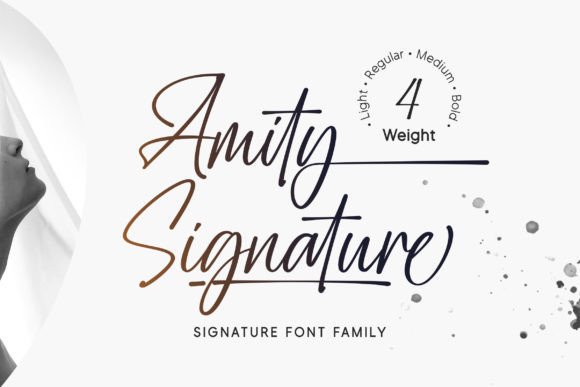
Step into the world of Amity Signature Font, a remarkable collection of four distinctive weights that will leave you captivated. From the delicate touch of Light to the unwavering strength of Bold, this font family offers an array of styles to match your every creative vision.
Unleash your imagination with Amity Signature. Whether you're crafting enchanting logos, building captivating brands, or designing eye-catching posters, this font is your versatile companion. Create labels that speak volumes, product packaging that entices, invitation designs that leave a lasting impression – and so much more.
With Amity Signature, you'll find limitless possibilities. Its elegant curves and sweeping strokes bring a timeless charm to your work, while its contemporary edge keeps you on the cutting edge of design. Experience the ultimate creative freedom as you explore the depths of this font's versatility.
Make a statement that resonates. Let Amity Signature be your voice, your brush, your chisel. Each stroke, each letter, each word carries the weight of your message, captivating your audience and leaving them breathless.
And with its PUA encoding, accessing the full spectrum of glyphs and ligatures is a breeze. Unleash the power of customization and let your creativity soar.